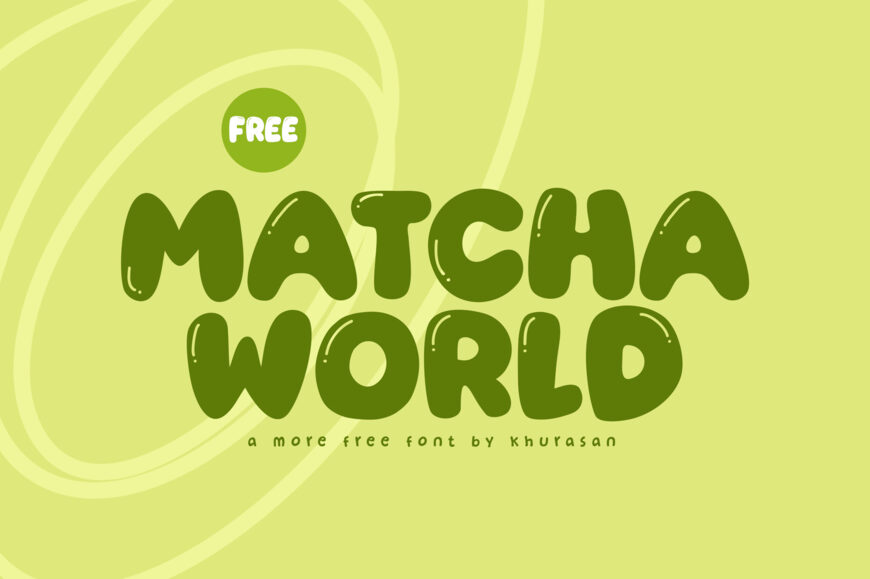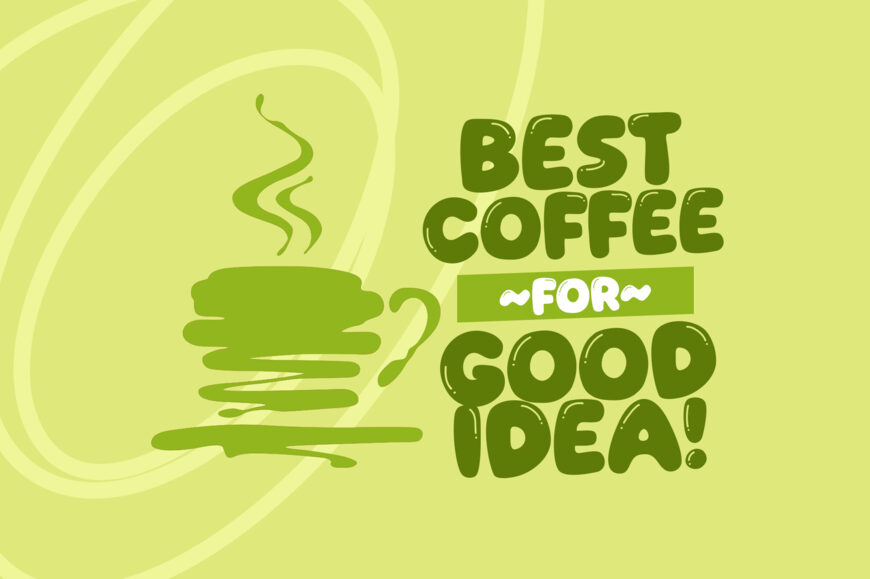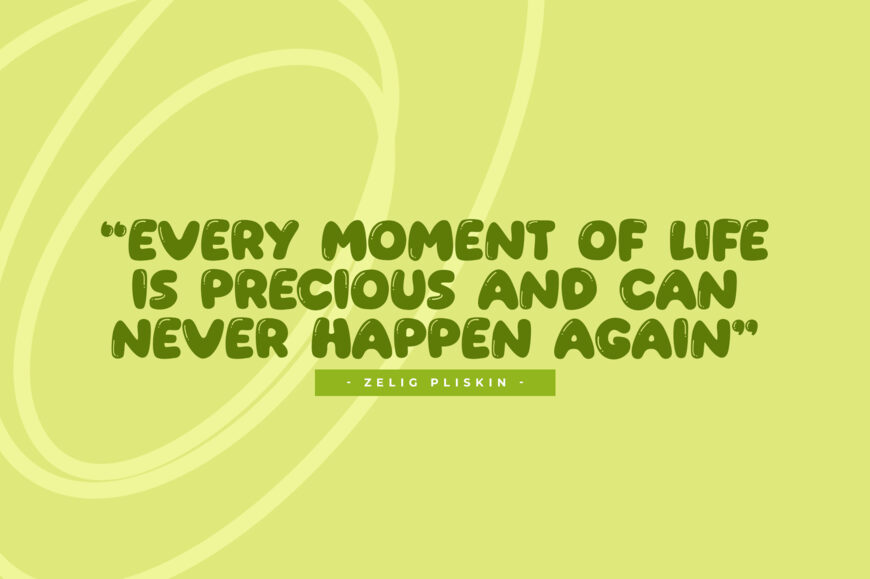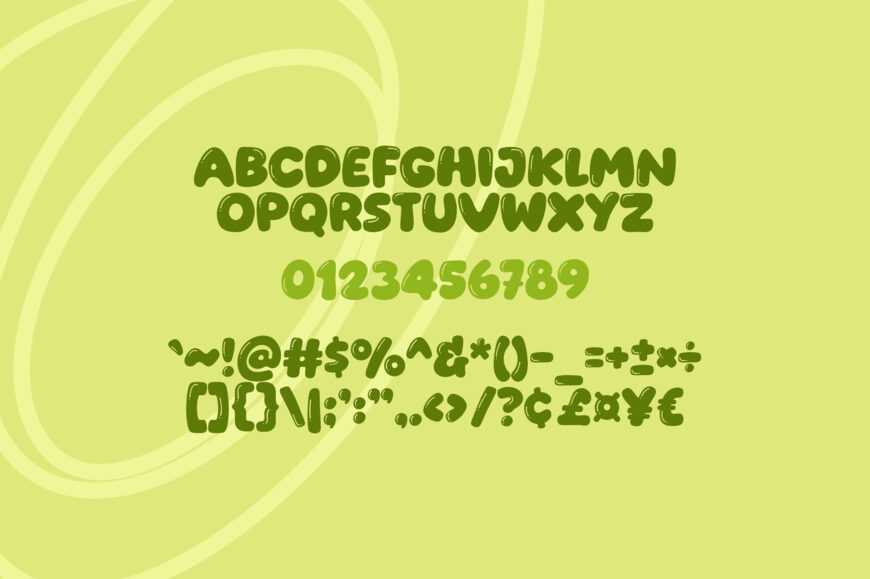
Matcha World is a playful, bold display font characterized by thick, bubbly letterforms and glossy highlight details that give each character a shiny, 3D appearance.
Featuring smooth curves and soft, rounded edges, its friendly, cartoonish style brings an energetic, youthful vibe to creative projects. It is ideal for cafes, coffee shop menus, food packaging, merchandise, children’s designs, eye-catching posters, and vibrant branding that requires a cheerful, informal aesthetic.